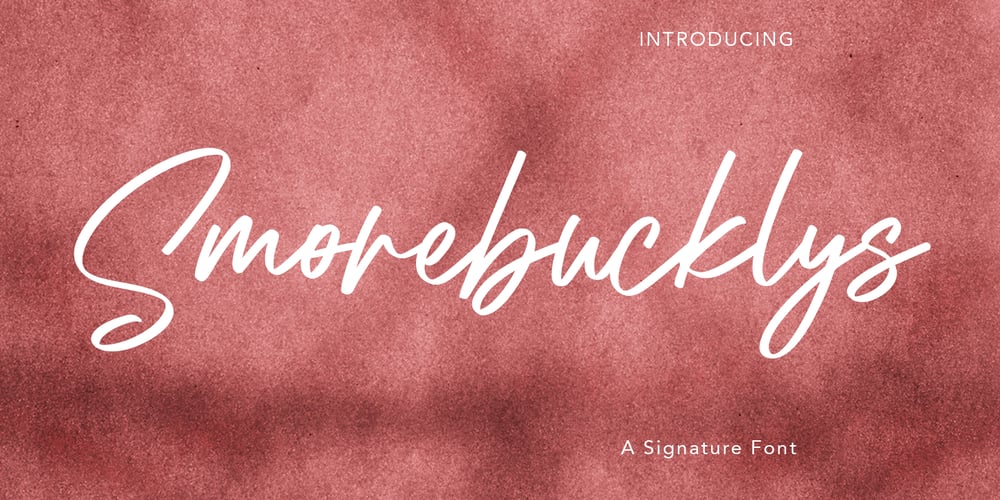
Smorebucklys
Smorebucklys font
Smorebucklys Font Family was designed by Gilang Maulana and published by Maulana Creative. Smorebucklys contains 1 styles and family package options. Smorebucklys is casual signature font, with clean contrast stroke, slanted and fun character. It has Opentype features ligatures of character and lowercase alternate, To give you an extra creative work. Smorebucklys font support multilingual more than 100+ language. This font is good for logo design, Social media, Movie Titles, Books Titles, a short text even a long text letter and good for your secondary text font with sans or serif. Make a stunning work with Smorebucklys font. Cheers, MaulanaCreative